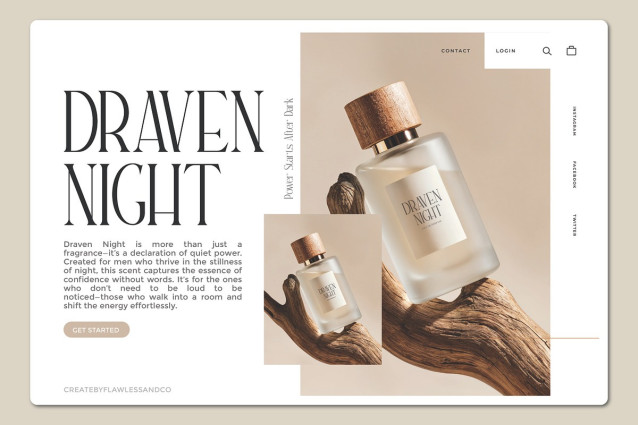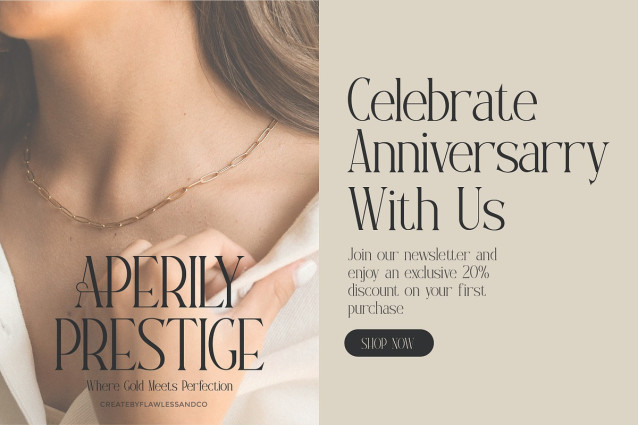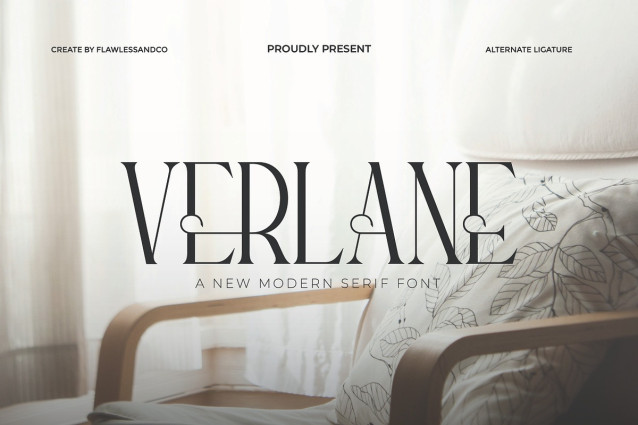
Verlane Font
Verlane Font is a classic-modern serif typeface that blends vintage elegance with contemporary simplicity. Designed with meticulous attention to detail, Verlane features soft yet confident serifs, balanced proportions, and graceful curves, making it an ideal choice for designs that demand sophistication and high-end appeal. This typeface strikes the perfect harmony between traditional charm and modern refinement. With stylish alternates and decorative ligatures, Verlane offers endless creative potential—perfect for projects that aim to make a lasting visual impression.